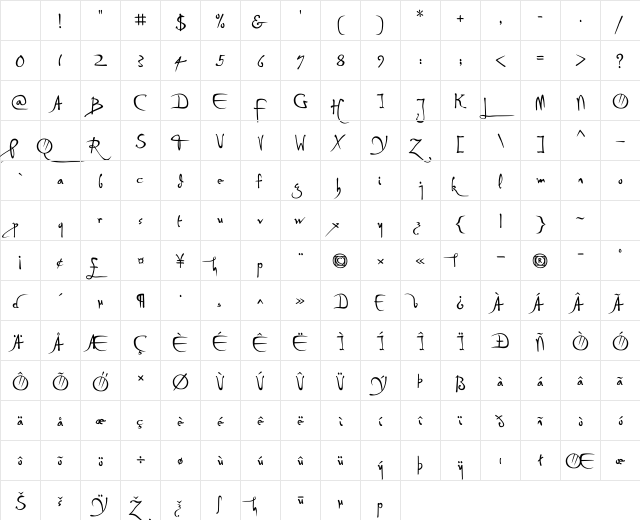
Complete P22 Da Vinci Forward Regular glyph index. Displaying only characters natively supported by P22 Da Vinci Forward Regular font.
P22 Da Vinci Forward is a composed and adaptable typeface that performs quietly and consistently across a wide range of design contexts.